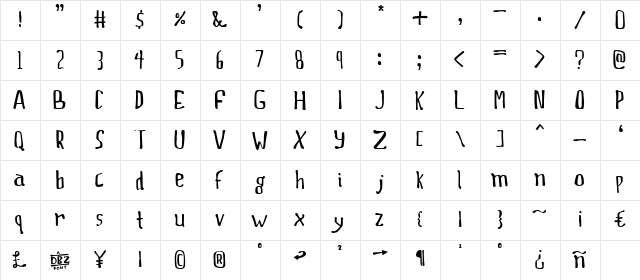
This Boring Party Regular
| Foundry | [ Divide By Zero ] Fonts |
| Designer | Tom Murphy 7 |
Design Context for This Boring Party Typeface
This Boring Party is a composed and adaptable typeface that performs quietly and consistently across a wide range of design contexts.